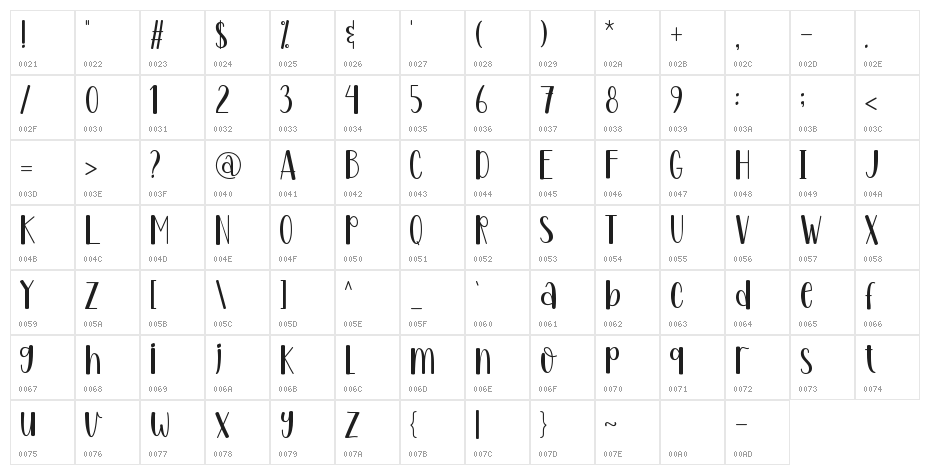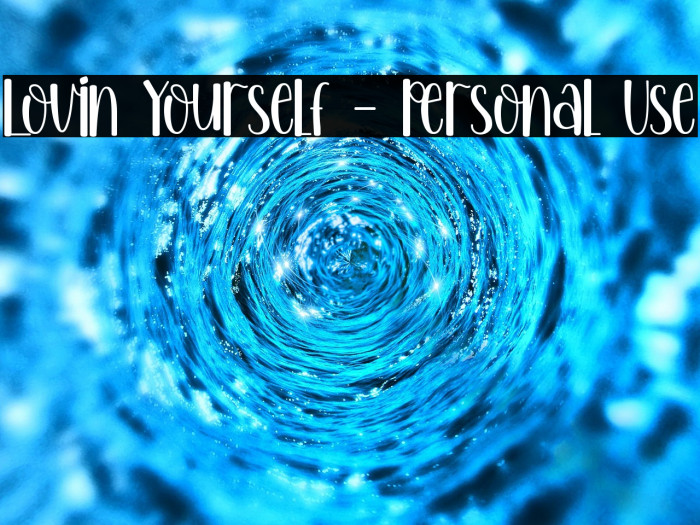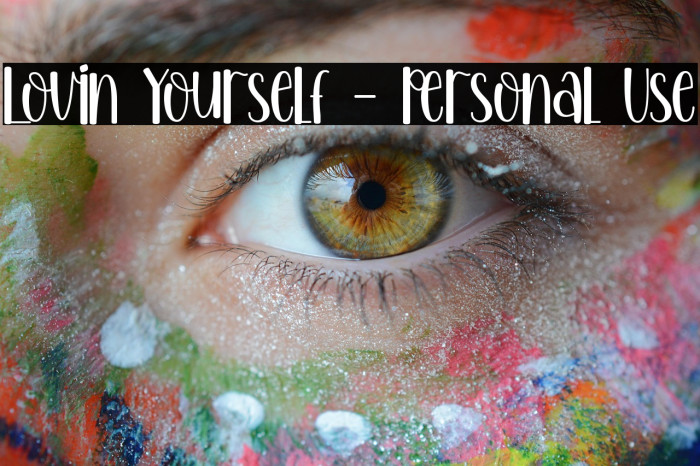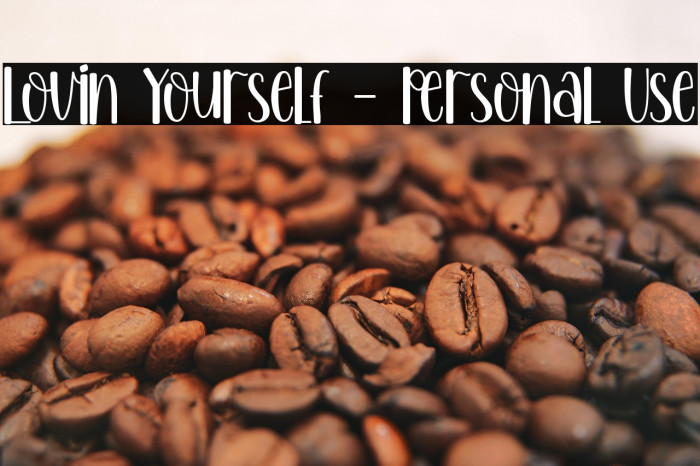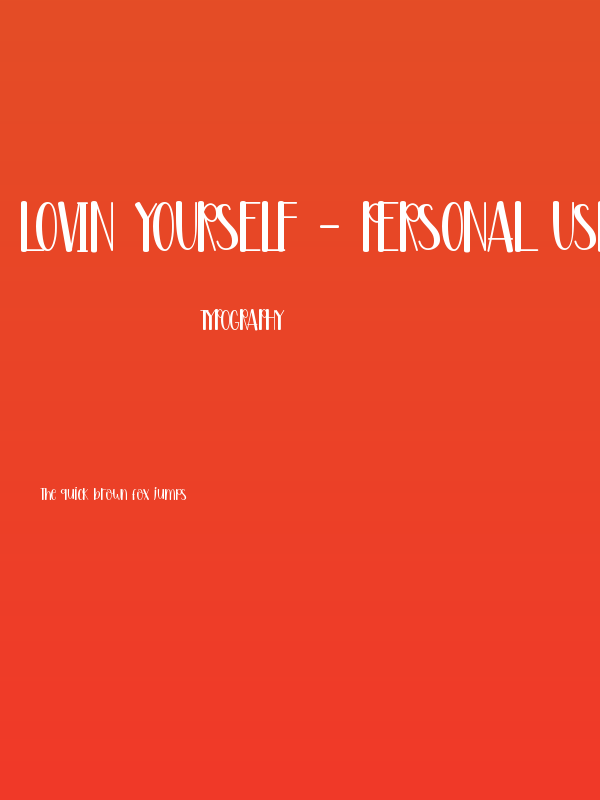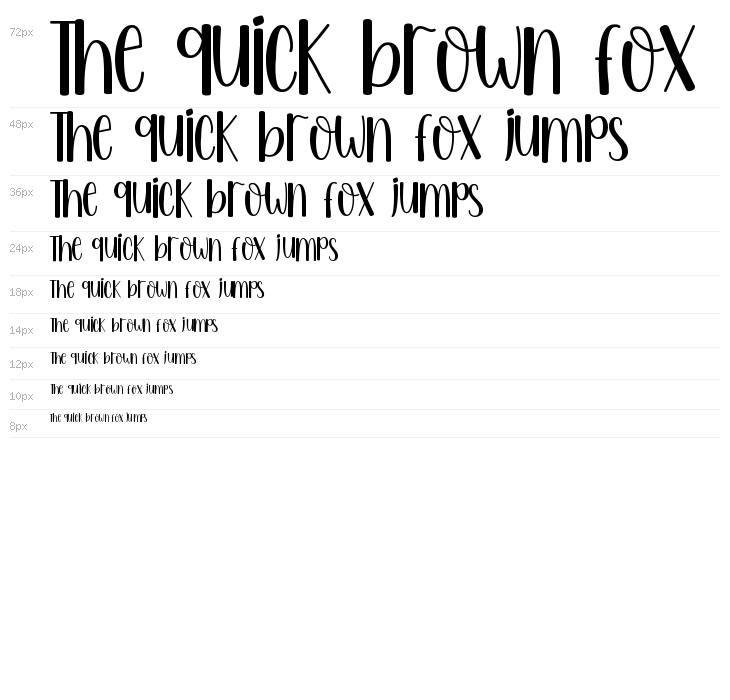
Lovin Yourself - Personal Use Font
Lovin Yourself - Personal Use Description
This font features a playful and whimsical design with a handwritten style. The characters are tall and narrow, with a mix of thick and thin strokes that add a dynamic feel. The uppercase letters have a unique flair, with some characters featuring loops and curves that give them a lively appearance. The lowercase letters maintain a consistent style, complementing the uppercase with their rounded forms. Numbers and special characters are designed to match the overall aesthetic, ensuring a cohesive look. This font is perfect for projects that require a fun and informal touch.